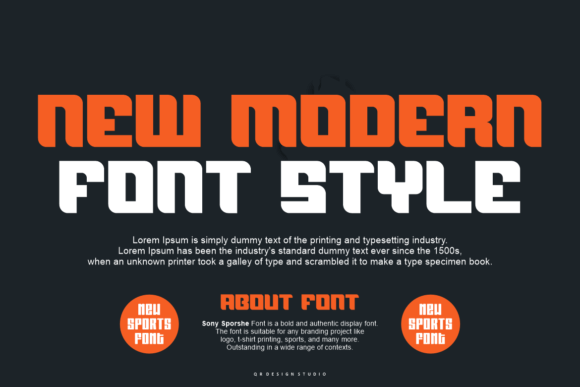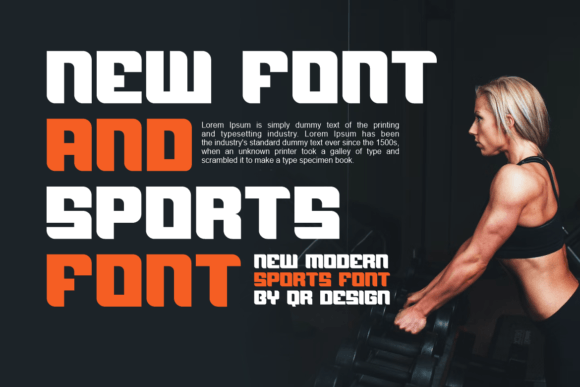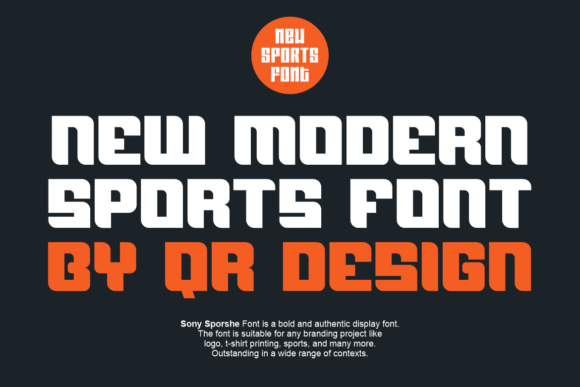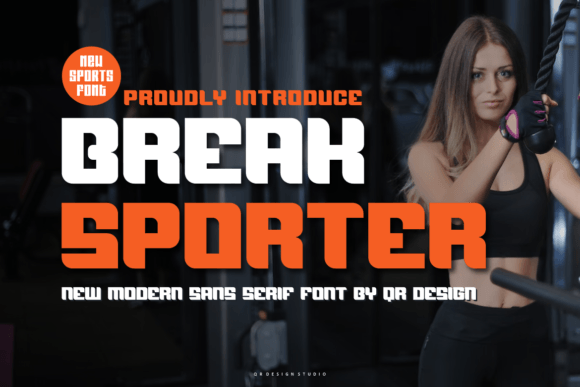
Introduction to Break Sporter Font
Break Sporter is a cool and bold sans serif font.
Fall in love with it and bring your projects to the highest levels .
Key Features of Break Sporter Font
Why Choose Break Sporter Font?
Break Sporter Font offers exceptional quality and versatility, making it a valuable addition to your design toolkit. Whether you’re creating for personal projects or commercial use, Break Sporter Font delivers professional results.